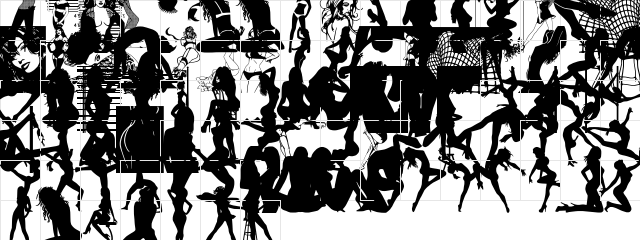
BeautyMarks Regular
Design Context for BeautyMarks Typeface
BeautyMarks is a composed and adaptable typeface that performs quietly and consistently across a wide range of design contexts.